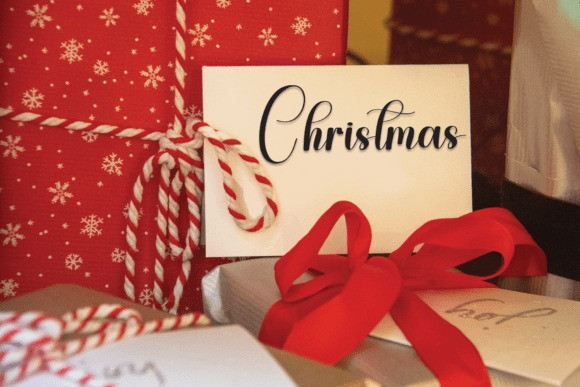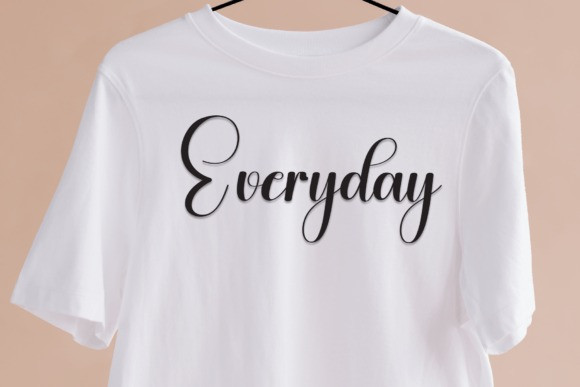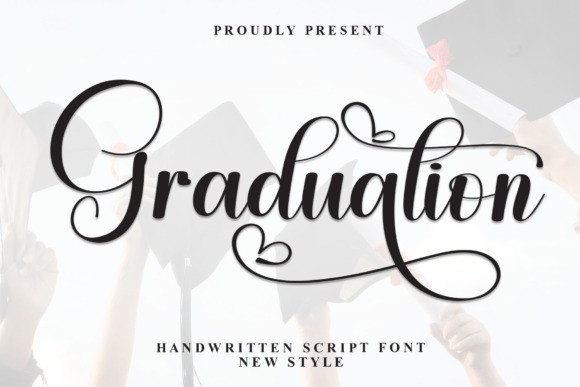
Graduation Script Typeface
Graduation Script Typeface special creative products for you, our products will give you an extraordinary experience.the latest style letters are perfect for wall displays, wedding invitations, social media post logos,advertisements, product packaging, product designs, labels, photography, watermarks, invitations, stationery,and any project that requires taste handwriting.